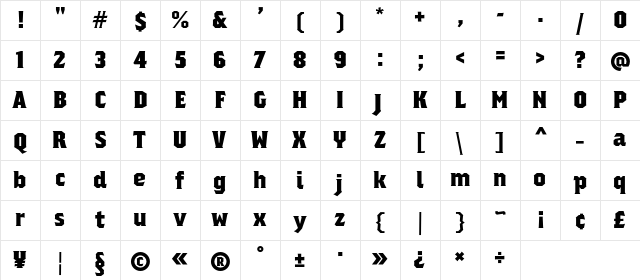
Regalia Free Regular
| Designer | Kosal Sen |
Design Context for Regalia Free Typeface
Regalia Free takes a measured approach to typography — its balanced proportions and neutral character make it a reliable workhorse for both digital and print work.